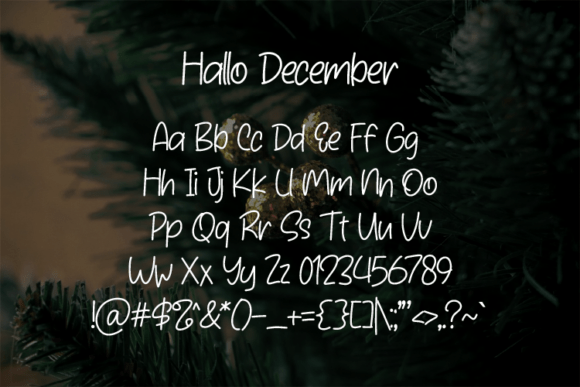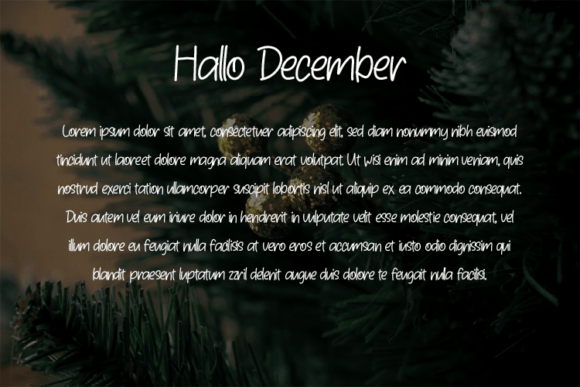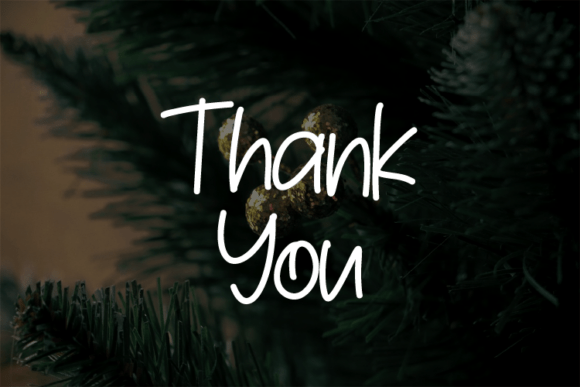
Introduction to Hallo December Font Font
Fonts play a crucial role in design, and the Hallo December Font font is a typeface that brings both character and versatility to any project. Whether you’re working on a branding project, a website, or a print design, the Hallo December Font font offers a unique style that can elevate your work.
Hallo December is a modern and elegant typeface designed for flexibility and excellent readability across a variety of media.
Key Features of Hallo December Font Font
Why Choose Hallo December Font Font?
The Hallo December Font font is more than just a typeface – it’s a design tool that helps you communicate your message with style and clarity. Its unique character set and versatile design make it suitable for a wide range of applications, from elegant invitations to bold headlines.
With its carefully crafted letterforms and balanced proportions, the Hallo December Font font ensures readability and visual appeal across all mediums.
What makes Hallo December Font font special?
The Hallo December Font font stands out with its unique design, exceptional readability, and versatility across various design applications.